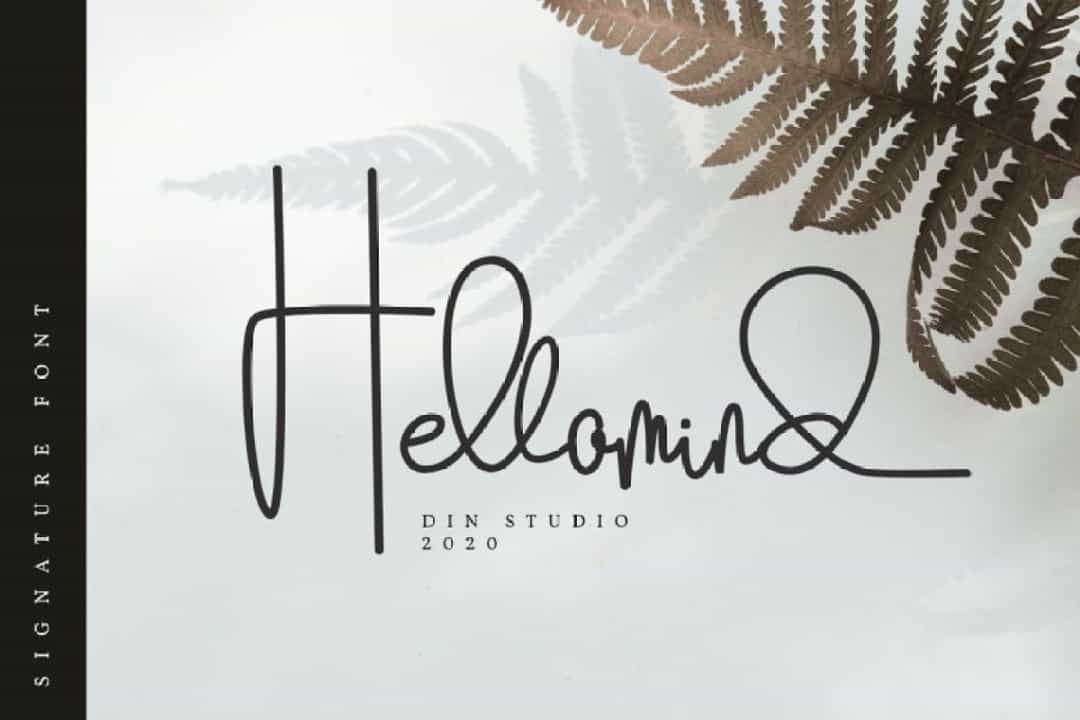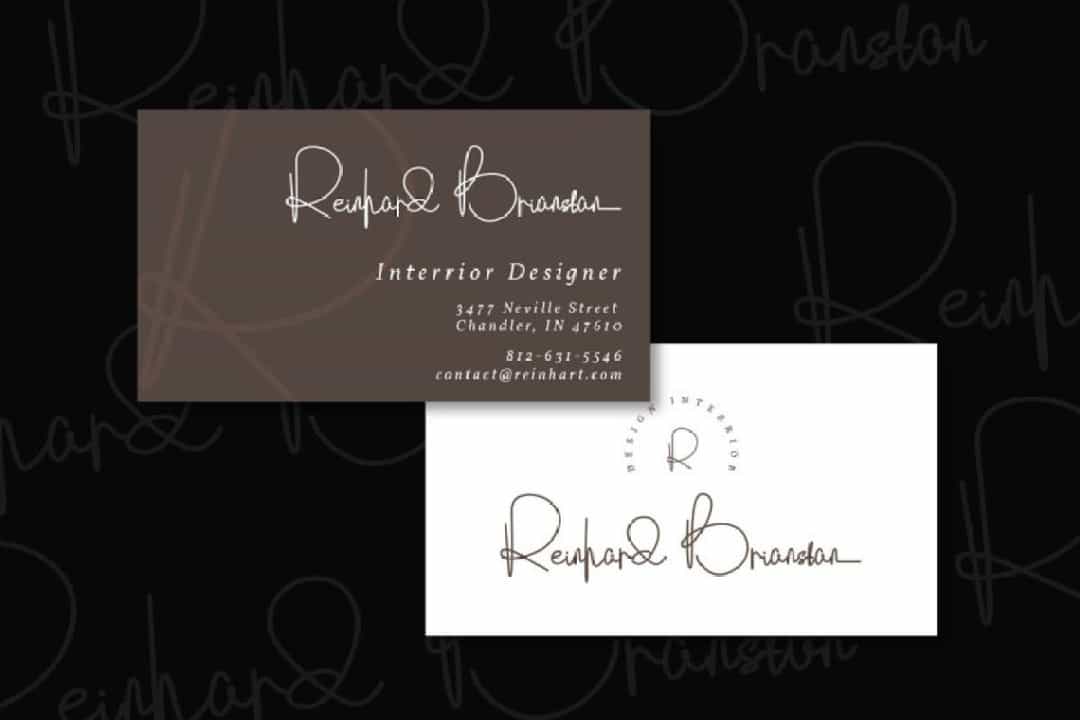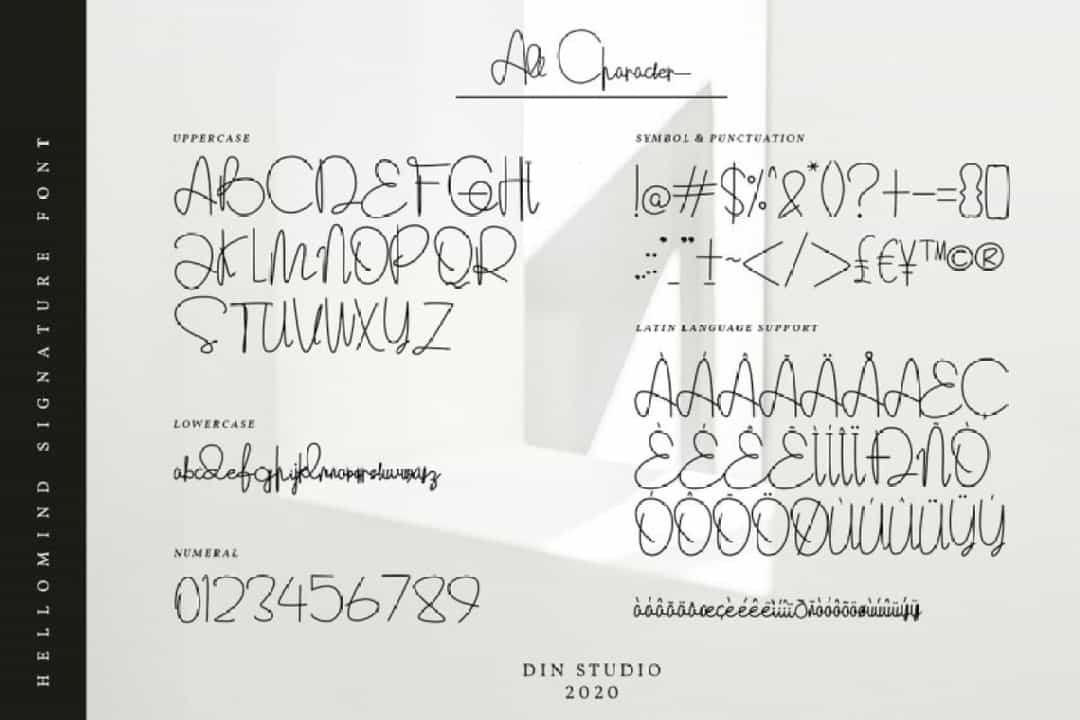
HelloMind is an advanced signature font that will add a touch of professionalism to various projects’ branding and is developed with a modern touch. Hello Mind is a clean design that goes well in quotes, logos, clothings, packaging or any design with typography application.